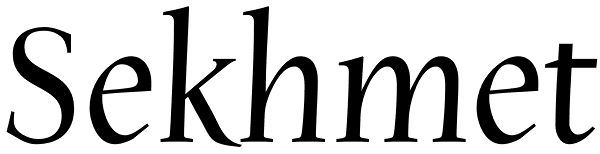
Sekhmet
Stylish, elegant, and alluring, Sekhmet got its name from the lion-headed war goddess of ancient Egypt. And the typeface does possess a kind of feline, forward-directed energy - a result of its calligraphic detailing combined with a very slight...
Sekhmet
Sekhmet Italic